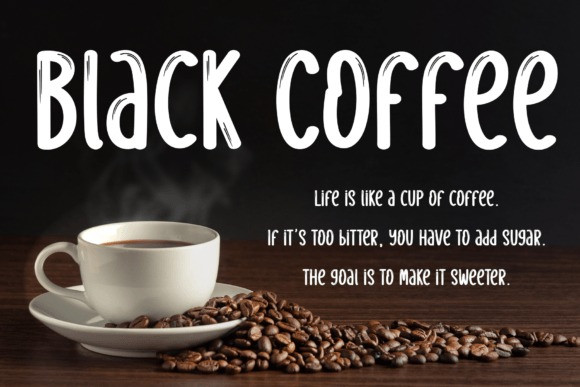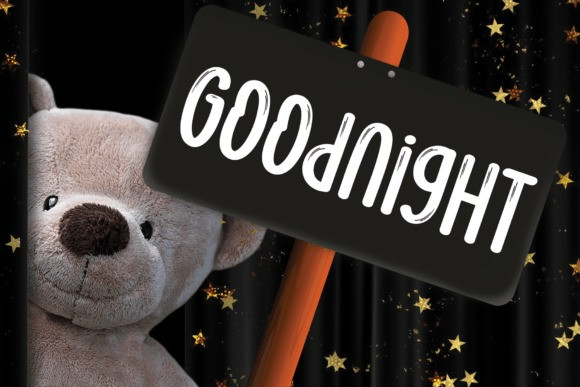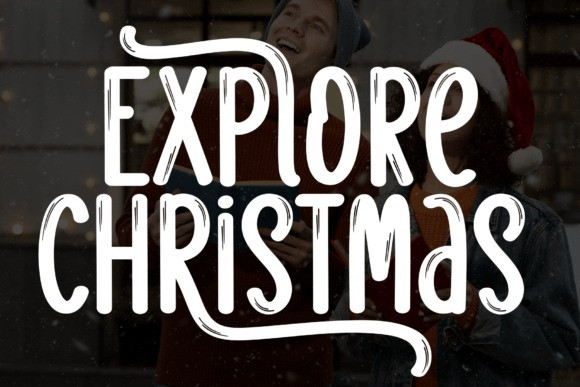
Explore Christmas Font
Explore Christmas Font is a sweet and friendly handwritten font. Its natural and unique style makes it incredibly fitting to a large pool of designs. The only limit is your imagination!